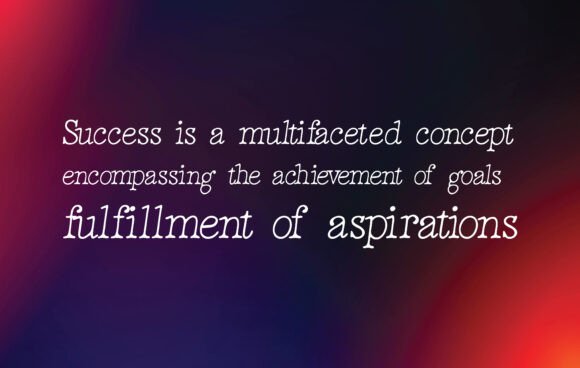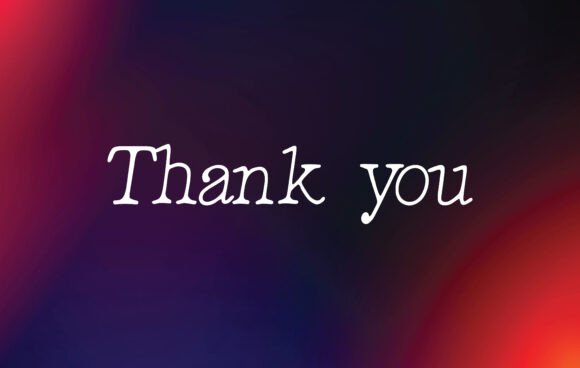
Discover the Versatility of Helen Font: Elevate Your Designs with Elegance and Legibility
In the world of typography, fonts play a pivotal role in bringing creative ideas to life. Among the myriad of fonts available, Helen Font stands out as a remarkable choice for designers and crafters alike. This font is designed to be a true favorite, boasting a unique blend of elegance, legibility, and versatility that can catapult your designs to new heights. Whether you’re working on magazine headlines, t-shirts, social media content, branding materials, wedding invitations, or cards, Helen Font is poised to become your go-to typeface.
Unleash Your Creativity with Helen Font
Helen Font is crafted with the aim of providing a seamless typing experience, whether it’s used for body text or as a statement piece in titles. Its design ensures that it remains legible across various platforms and sizes, making it an excellent choice for both digital and print media. The font’s aesthetic appeal is undeniable, offering a fresh and modern look that can enhance the visual appeal of any project.
Why Choose Helen Font?
- Legibility: One of the standout features of Helen Font is its exceptional legibility. This ensures that your message is conveyed clearly, whether it’s in a body of text or a headline.
- Versatility: Helen Font is incredibly versatile, suitable for a wide range of design projects. From the bold statements of magazine headlines to the more personal touch of wedding invitations, this font adapts seamlessly.
- Elegance: With its elegant design, Helen Font adds a touch of sophistication to any project. It’s perfect for designers looking to infuse their work with a bit of class and style.
- Easy to Read: The font’s readability makes it an excellent choice for body text, ensuring that your readers can enjoy a smooth reading experience.
Applications of Helen Font
The applications of Helen Font are vast and varied. Here are a few ideas to get you started:
- Magazine Headlines: Create striking headlines that capture the essence of your story.
- T-Shirts and Merchandise: Add a professional touch to your apparel and merchandise designs.
- Social Media: Elevate your social media posts with stylish and readable text.
- Branding: Use Helen Font to create a consistent and elegant brand image.
- Wedding Invitations and Cards: Add a touch of elegance and personalization to your invitations and greeting cards.
Tips for Using Helen Font Effectively
To make the most out of Helen Font, consider the following tips:
- Mix and Match: Don’t be afraid to experiment with different sizes and weights of Helen Font to create visual hierarchy.
- Pair with Other Fonts: Helen Font pairs well with a variety of other typefaces. Try combining it with a sans-serif font for a modern contrast.
- Consider Your Audience: Keep in mind the preferences and reading habits of your target audience when choosing font sizes and styles.
Helen Font is more than just a typeface; it’s a tool that can transform your creative ideas into stunning visual realities. Its legibility, elegance, and versatility make it an indispensable asset for designers and crafters looking to elevate their work. Whether you’re a professional designer working on a client’s project or a DIY enthusiast crafting your own creations, Helen Font has the potential to take your designs to the highest level. So, why wait? Explore the possibilities of Helen Font today and discover a world of creative potential at your fingertips.